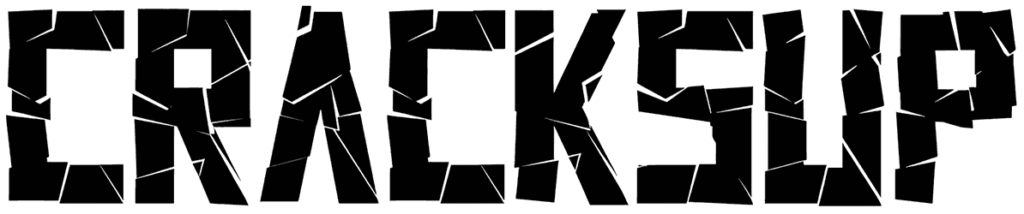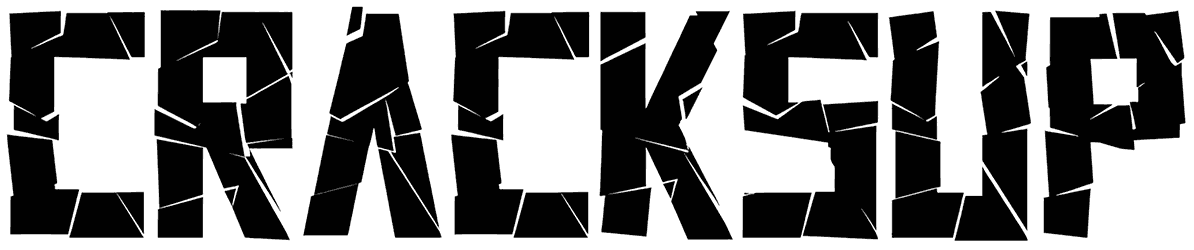
Cracksup Font
It could be an ideal choice to add a cool and contemporary mood to your modern design. Cracksup as a destroyed font with its broken face will do this and display words in designs such as posters, headlines, covers, and many others the same. This fancy font doesn’t support lowercase, numbers, or punctuation, but can still be a nice show with your creativity.